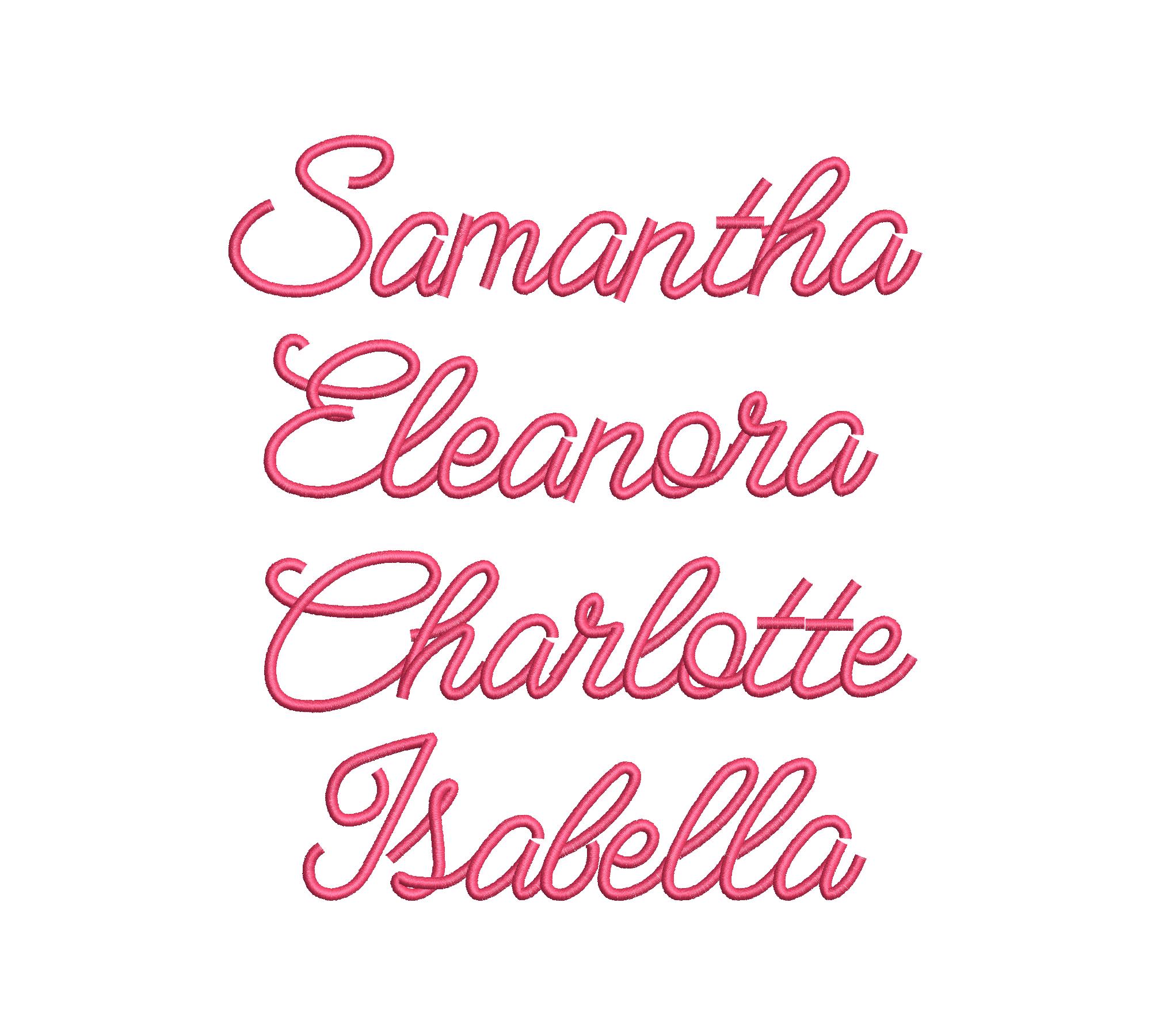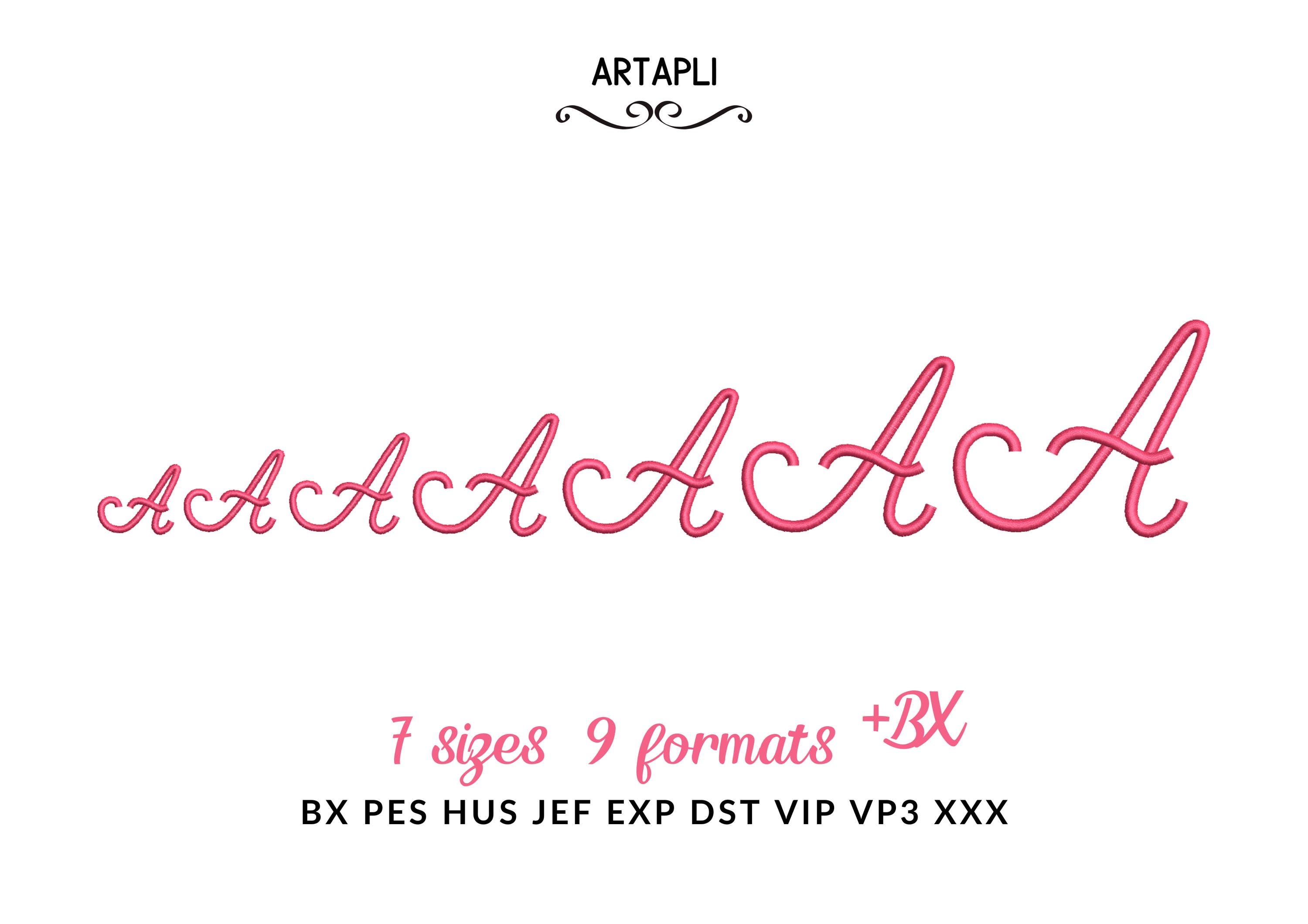
Satin stitch handwritten Font script alphabet Monogram letters kids baby girly font machine embroidery designs sizes 1 up to 3 inches, BX
Satin stitch handwritten Font script alphabet Monogram letters kids baby girly font machine embroidery designs sizes 1 up to 3 inch, BX
Whole alphabet A-Z uppercase and lowercase letters, numbers 0-9, and punctuation.